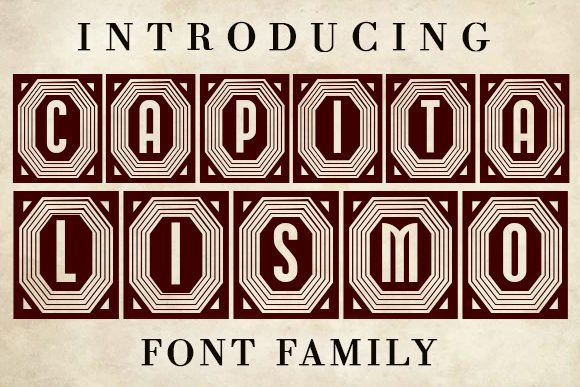
The Birth of a New Era in Typography
Have you ever been stuck in a creative rut, staring at a blank page or screen, waiting for the perfect font to bring your design to life? It’s a moment we’ve all been there, and it’s exactly this feeling that inspired the creation of Capitalismo Font – a stunning capital font family designed to elevate your designs to new heights.
Capitalismo Font is a versatile and extensive family, comprising 13 distinct variants that cater to a wide range of design needs. Whether you’re a seasoned professional or a budding designer, this font is sure to become your go-to choice for adding a touch of sophistication and elegance to your work.
Capitalismo Font Key Features
- Unique Characteristics: Capitalismo Font is designed to evoke a sense of luxury and sophistication, with unique letterforms and subtle flair. It features a high x-height, making it highly legible even at small sizes.
- Kerning and Ligatures: Capitalismo Font includes advanced kerning and ligature pairs, ensuring that text sets look polished and professional.
- Font Pairing: Capitalismo Font is designed to be paired with other fonts, making it an excellent choice for branding and design projects where multiple fonts are used.
Capitalismo Font Review
Overall, I think Capitalismo Font is a decent font, but it’s not without its quirks. Let’s dive into what works well and what doesn’t.
- It has a unique, modern look that can add a touch of sophistication to your designs.
- The font is highly legible, even at smaller sizes, making it suitable for a variety of applications.
- The font’s bold weights are particularly well-designed, with clear and distinct strokes.
- The font’s light weights can appear a bit too light and may not be suitable for body text.
- The font’s italic styles are not as well-designed as the regular and bold styles.
- The font’s lack of Cyrillic support may be a limitation for designers working with non-English languages.
While Capitalismo Font has its strengths, it’s not a perfect font. With some tweaks and refinements, it could be a top-tier font. As it stands, it’s a solid choice for designers looking for a modern, legible font, but may not be the best fit for every project.
Capitalismo Font: A Practical Application Guide
Tips for Getting the Most Out of Capitalismo Font
Here are some tips for getting the most out of Capitalismo Font:
- Use Capitalismo Font for headings and titles to add a touch of elegance.
- Combine Capitalismo Font with other fonts to create a unique and visually appealing design.
- Experiment with different font sizes and styles to create a bold and eye-catching design.
Capitalismo Font is perfect for:
- Designing luxury brands and products.
- Creating high-end marketing materials.
- Adding a touch of sophistication to your designs.
Alternatives to Capitalismo Font
Montserrat is a sans-serif font designed by Julieta Ulanovsky. It’s a great alternative to Capitalismo Font when you need a clean and modern look for your design. Montserrat has a more geometric feel and is highly legible, making it perfect for body text and headings.
Comparison to Capitalismo Font: Montserrat has a more minimalist and geometric feel, whereas Capitalismo Font has a more ornate and vintage feel.
Playfair Display is a luxurious and elegant serif font designed by Claus Eggers Sørensen. It’s a great alternative to Capitalismo Font when you need a sophisticated and high-end look for your design. Playfair Display has a more classic and refined feel, making it perfect for headings and titles.
Comparison to Capitalismo Font: Playfair Display has a more traditional and elegant feel, whereas Capitalismo Font has a more modern and vintage feel.